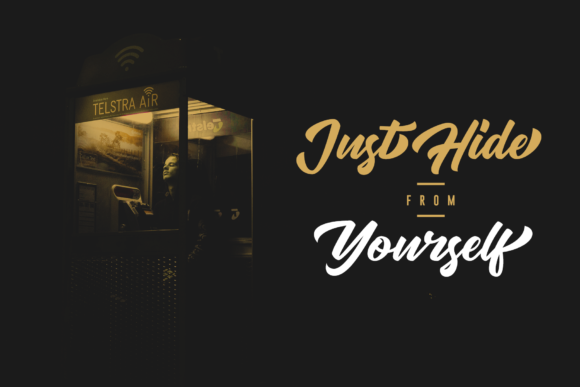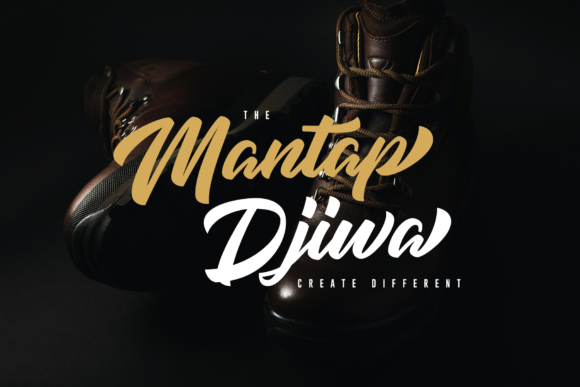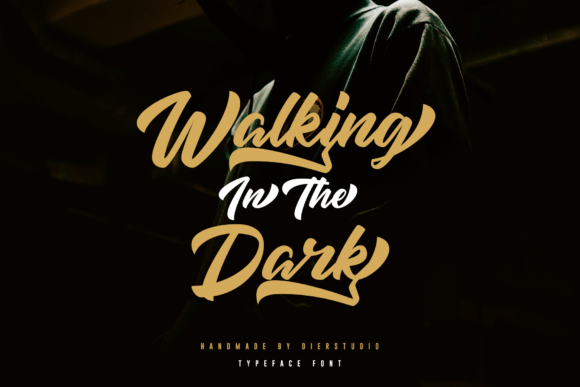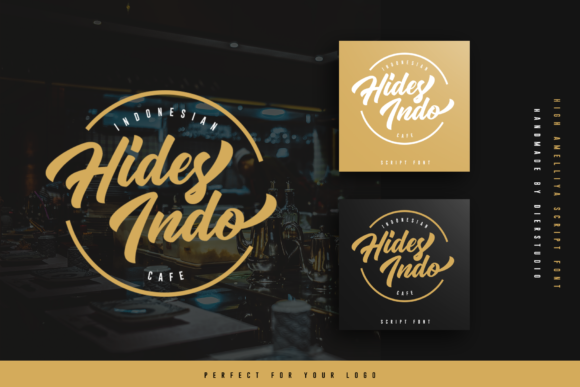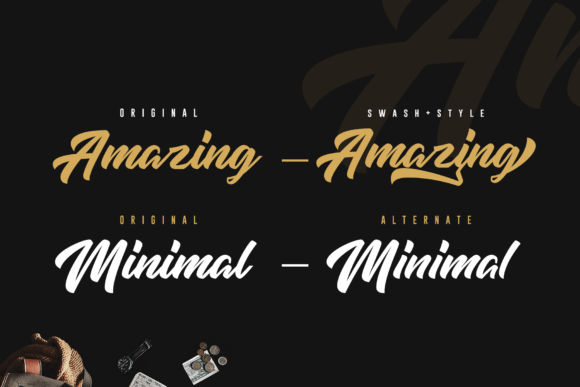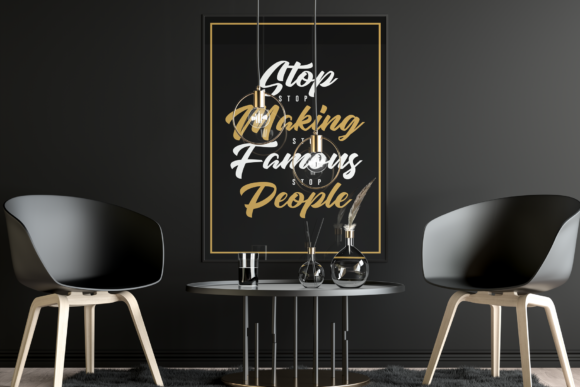
Introduction to High Amelliya Font
As a designer, there’s nothing quite like the thrill of discovering a new font that perfectly captures the essence of your creative project. For me, that moment came when I stumbled upon the stunning High Amelliya Font. Its elegant, brush-style script immediately caught my eye, and I knew I had to learn more about this design resource.
With its bold and classy touch, the High Amelliya Font is the perfect addition to any project. Whether you’re working on a branding project, creating social media posts, or designing product packaging, this high-quality font is sure to elevate your design to the next level. Plus, with its transparent background, you can easily integrate it into any design without worrying about clutter.
Key Features of High Amelliya Font
- High quality, elegant script font suitable for creative projects and design resources.
- Comes in a transparent background, allowing for seamless integration with various design elements.
- Designed with a high resolution of 300 DPI, ensuring crisp and clear text output.
- Perfect for use in invitations, logos, and other design elements where a touch of elegance is required.
Honest Review: High Amelliya Font
I recently had the chance to work with the High Amelliya Font in one of my creative projects, and I must say, it’s been a great experience. The font’s unique design and high quality make it a fantastic design resource for any project.
Here are some things that work well with the High Amelliya Font:
- ✨ The font’s modern and elegant design makes it perfect for various creative projects, from digital art to print materials.
- ✨ It has a transparent background, which allows for seamless integration with any design element.
- ⚠️ The font may not be suitable for projects that require a bold or dramatic font style.
- ⚠️ Some users may find the font’s size and style a bit inconsistent, which can be a challenge for large-scale designs.
Overall, the High Amelliya Font is a solid design resource that I would highly recommend for any creative project. Its high quality and unique design make it an excellent choice for designers looking for a modern and elegant font style.
Use the High Amelliya Font with a transparent background to create a seamless and professional design. Experiment with different font sizes and styles to add visual interest to your project. This design resource is ideal for creating eye-catching visuals for your creative project.
The High Amelliya Font is suitable for a wide range of creative projects, including logos, business cards, brochures, and presentations. Its high-quality design and transparent background make it an ideal choice for designers and non-designers alike.